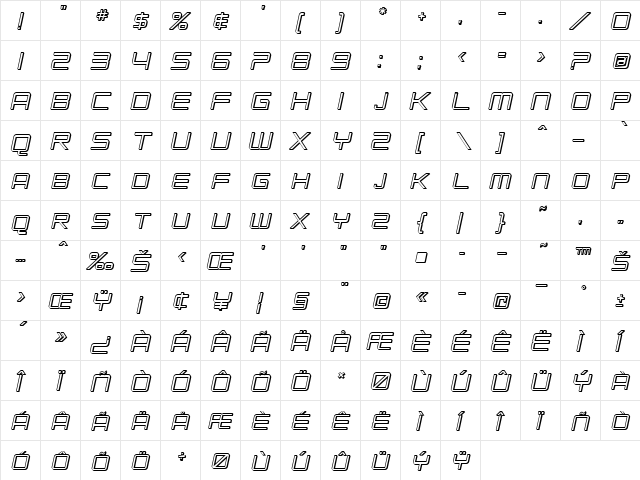
SF Chromium 24 SC Oblique
Design Context for SF Chromium 24 SC Typeface
SF Chromium 24 SC takes a measured approach to typography — its balanced proportions and neutral character make it a reliable workhorse for both digital and print work. Its italic angle brings a sense of urgency and motion to the letterforms.
Pro Tip: Try SF Chromium 24 SC for annotation and caption copy alongside an upright companion — the contrast in angle creates a dynamic but ordered typographic system.